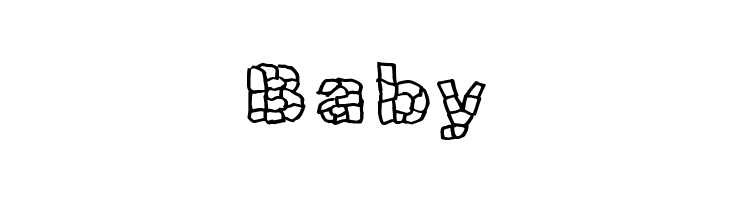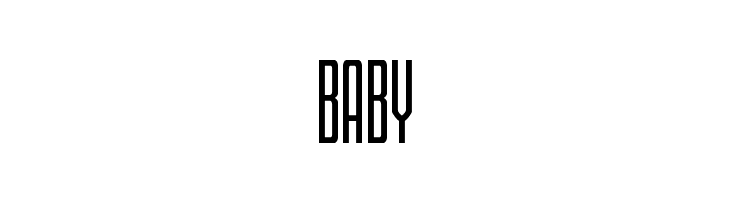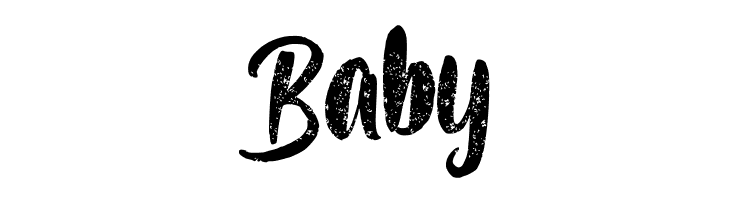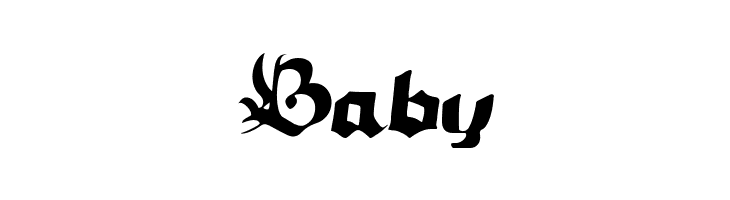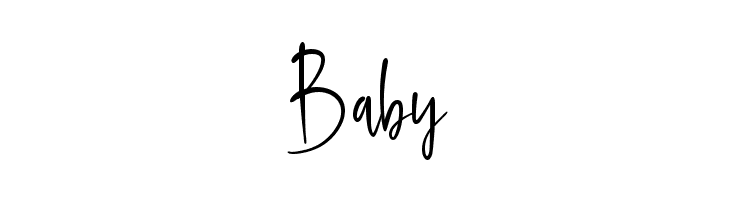
A playful, handwritten font with dynamic, cursive-like strokes.
A playful, blocky font with a geometric, stone-like design.
A bold, textured, hand-painted style font with a rustic and artistic feel.
A bold, gothic-inspired font with sharp, angular edges and dramatic flair.
A bold, playful font with rounded strokes and a friendly appearance.
A bold, cursive font with a flowing, handwritten style.
A bold, modern font with elongated vertical strokes and angular edges.
A modern, geometric font with tall, narrow characters and consistent stroke width.
A bold, geometric font with a 3D effect and outlined characters.
A bold, 3D italic font with outlined characters and a modern, dynamic style.